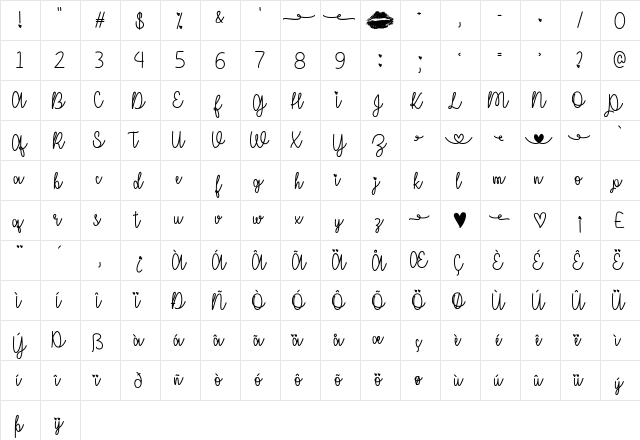
I Miss Your Kiss Regular
| Foundry | Misti's Fonts |
| Designer | Misti's Fonts |
Design Context for I Miss Your Kiss Typeface
I Miss Your Kiss takes a measured approach to typography — its balanced proportions and neutral character make it a reliable workhorse for both digital and print work.